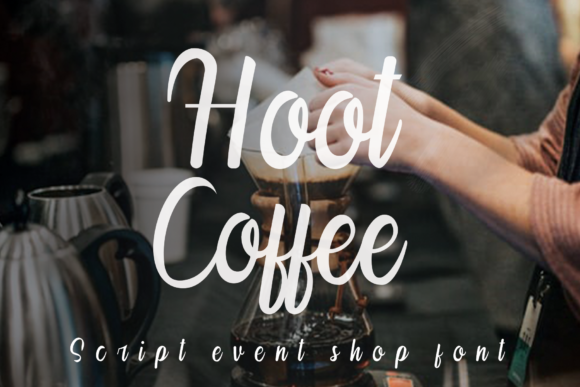
Prepare to be swept away by Hoot Coffee, the exquisite script font that will captivate your senses and elevate your designs to new heights. Its enchanting strokes, reminiscent of a skilled calligrapher's hand, dance across the page with effortless grace and fluidity.
Indulge in the timeless elegance of Hoot Coffee, where classic charm meets modern flair. Its versatility knows no bounds, making it the perfect choice for a myriad of projects, from heartfelt wedding invitations to captivating social media posts. Watch as your words transform into works of art, imbued with a touch of whimsy and sophistication.
But Hoot Coffee is more than just a font; it's an invitation to unleash your creativity. Its enchanting characters will ignite your imagination, inspiring you to create designs that leave a lasting impression. Whether you're a seasoned designer or just starting your artistic journey, Hoot Coffee will guide you towards masterpieces that will turn heads and capture hearts.